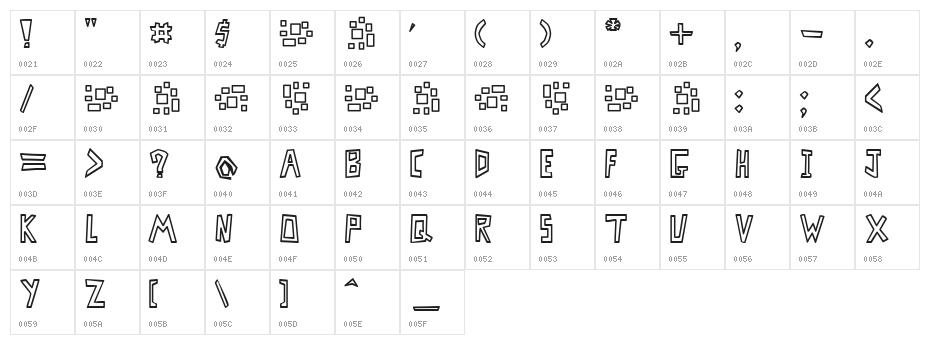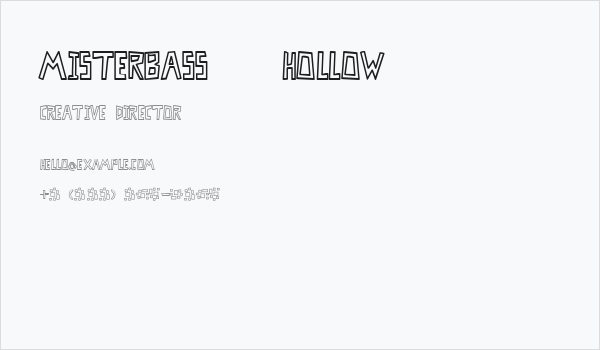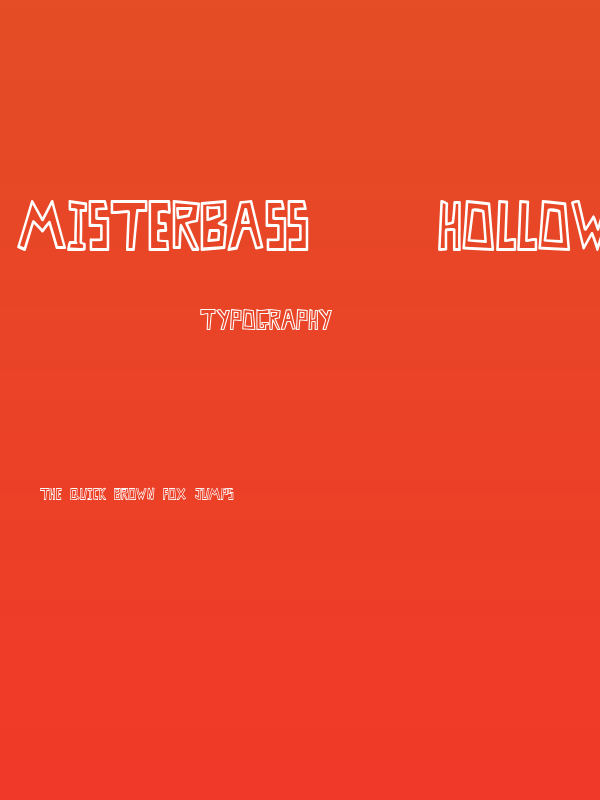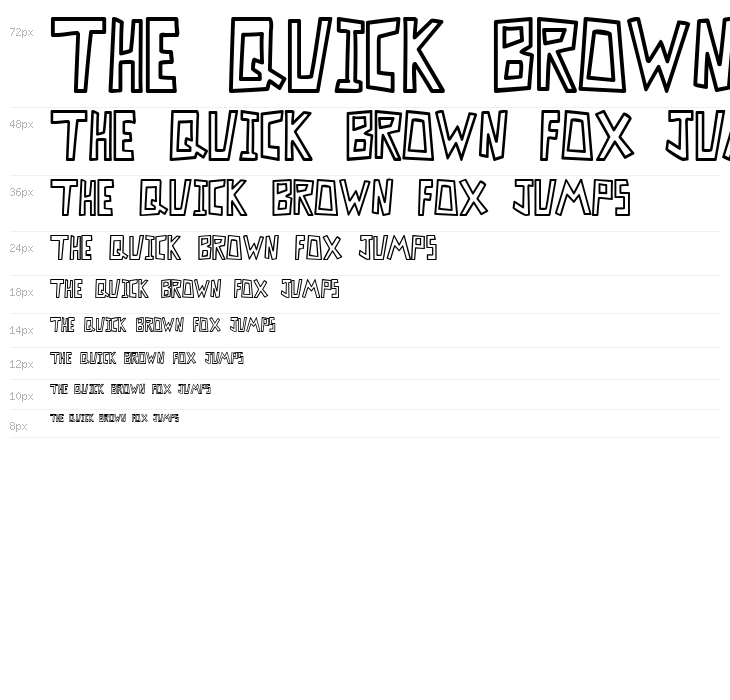
MisterBass hollow Font
MisterBass hollow Description
This font features a unique, hollow design with bold, angular lines that create a striking visual impact. The uppercase and lowercase letters maintain a consistent geometric style, with sharp edges and a slightly futuristic appearance. The numbers and special characters follow the same design principles, ensuring uniformity across all glyphs. The hollow aspect of the font gives it a distinctive look, making it stand out in any design project. Its boldness and angularity suggest a modern and edgy aesthetic, suitable for creative and unconventional uses.
| Proposed Projects | Ideal for posters, album covers, video game graphics, and any project seeking a bold, modern aesthetic. |